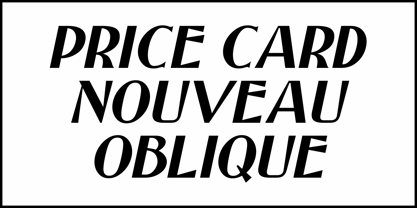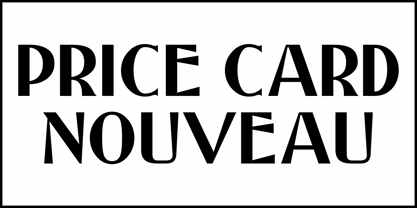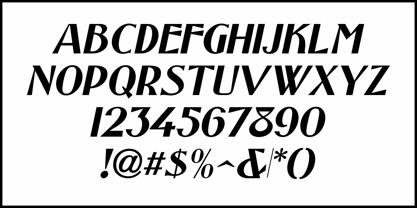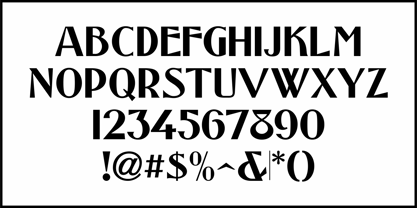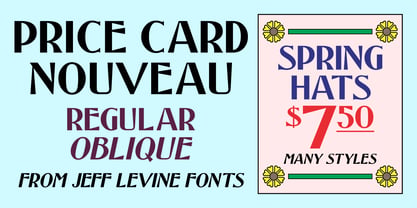
Price Card Nouveau JNL
by Jeff Levine
Within the pages of the 1919 publication "One Hundred Alphabets for the Show Card Writers" by The Merchants Record Company was a bold thick-and-thin sans serif alphabet and numerals with Art Nouveau influences. This vintage hand lettered type design has been digitally redrawn as Price Card Nouveau JNL and is available in both regular and oblique versions.
Designers: Jeff Levine
Foundry: Jeff Levine